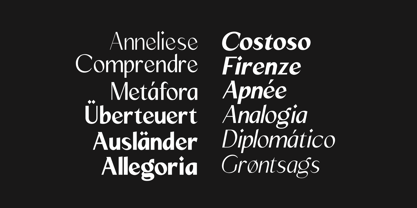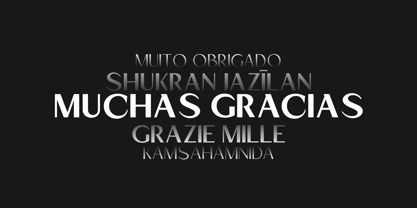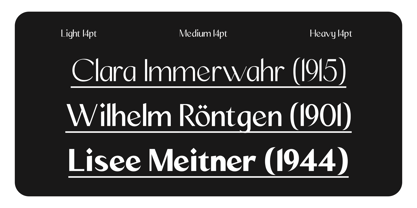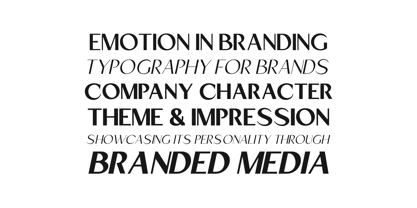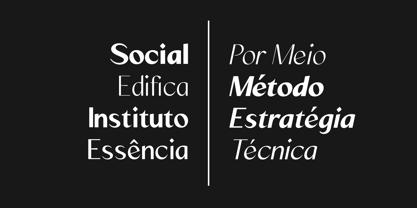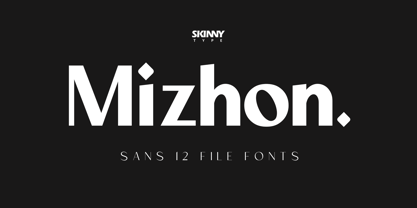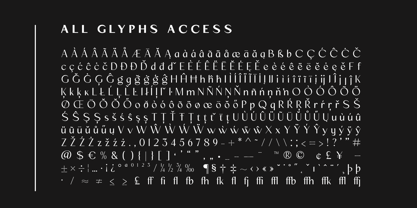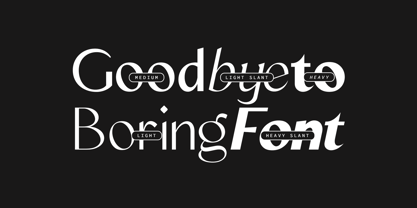
Mizhon Sans
by Skinny Type
The Mizhon Sans Font Family was designed by Muhajir and published by Skinny Type. Mizhon Sans contains 13 styles and family package options. More about this family
Mizhon Sans presents the purest and most minimal expression of the family. Clean stroke endings and reduced contrast emphasize clarity, strength, and modern simplicity. Its geometric foundation and smooth curves create a confident yet versatile tone, suitable for digital interfaces, corporate identities, and strong headline compositions. This style works effortlessly when a sleek, forward-thinking aesthetic is required.
Designers: Muhajir
Foundry: Skinny Type
Skinny Type is an independent type foundry dedicated to crafting expressive and contemporary typefaces with a strong emphasis on clarity, character, and refinement. Rooted in a graphic design perspective, each typeface is carefully developed through a balance of visual sensitivity and technical precision. The foundry focuses on creating distinctive typographic voices that elevate branding, editorial, and digital experiences with both personality and purpose.